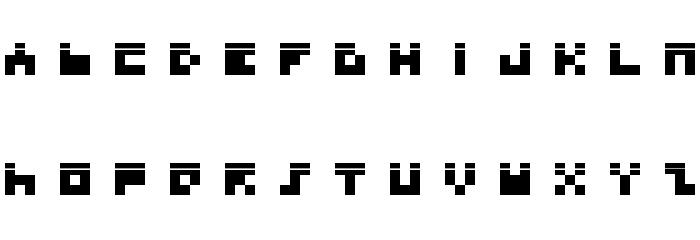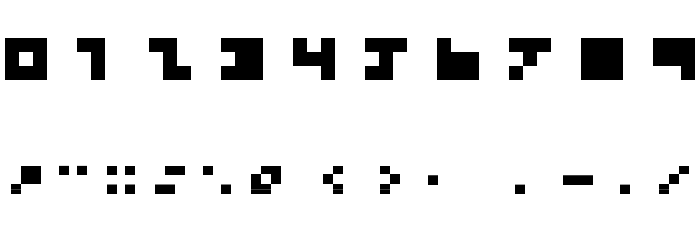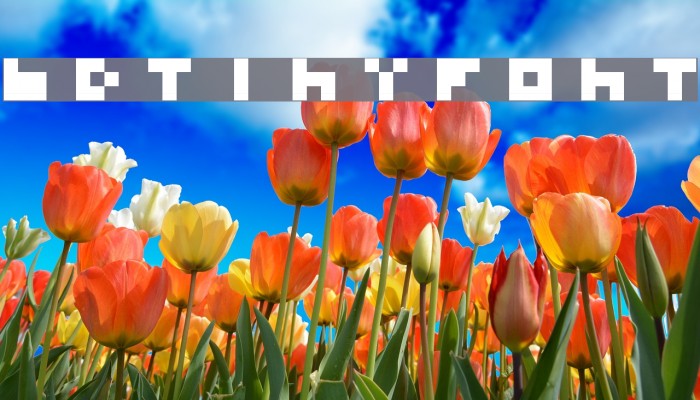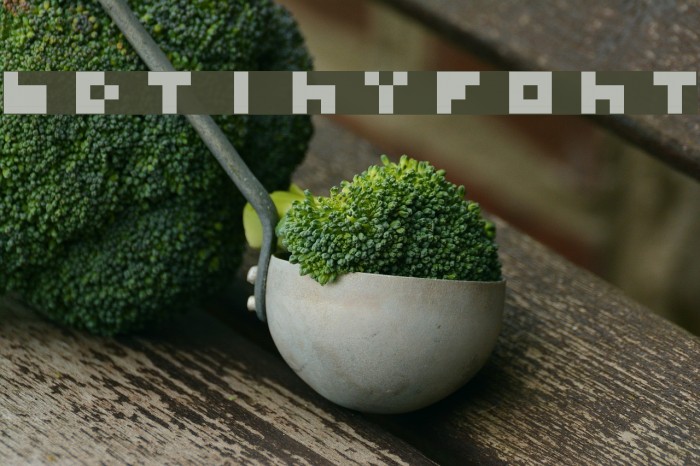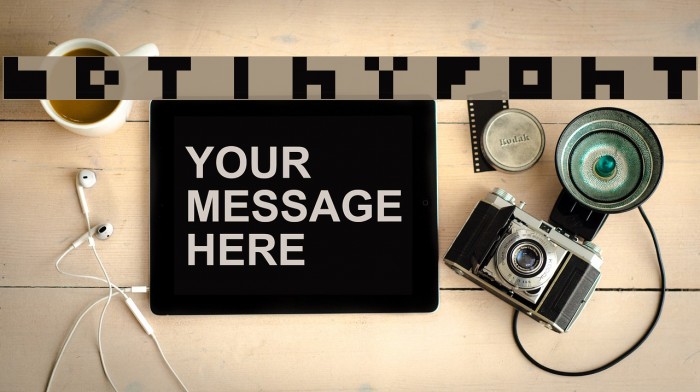
BDTINYFONT Font
This font features a pixelated, blocky design reminiscent of early digital displays and retro video games. Each character is constructed with a grid-like structure, giving it a distinctly geometric and minimalist appearance. The uppercase and lowercase letters maintain a consistent height, contributing to a uniform look. Numbers and special characters follow the same pixelated style, ensuring cohesion across all glyphs. The font's simplicity and clarity make it highly legible, even at smaller sizes, while its unique style adds a nostalgic, tech-inspired aesthetic.
A pixelated, blocky font with a retro digital aesthetic.
- Proposed Projects: Ideal for retro-themed designs, video game graphics, digital art projects, and tech-related branding.
- Overall Style: Retro, Digital
- Use Case: Headlines, Logos, Digital displays